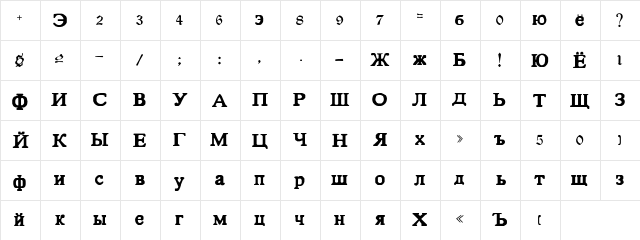
HTEBasicCyrilli Regular Font Preview
HTEBasicCyrilli Regular
HTEBasicCyrilli Regular Font Details
Design Context for HTEBasicCyrilli Typeface
HTEBasicCyrilli is a composed and adaptable typeface that performs quietly and consistently across a wide range of design contexts.